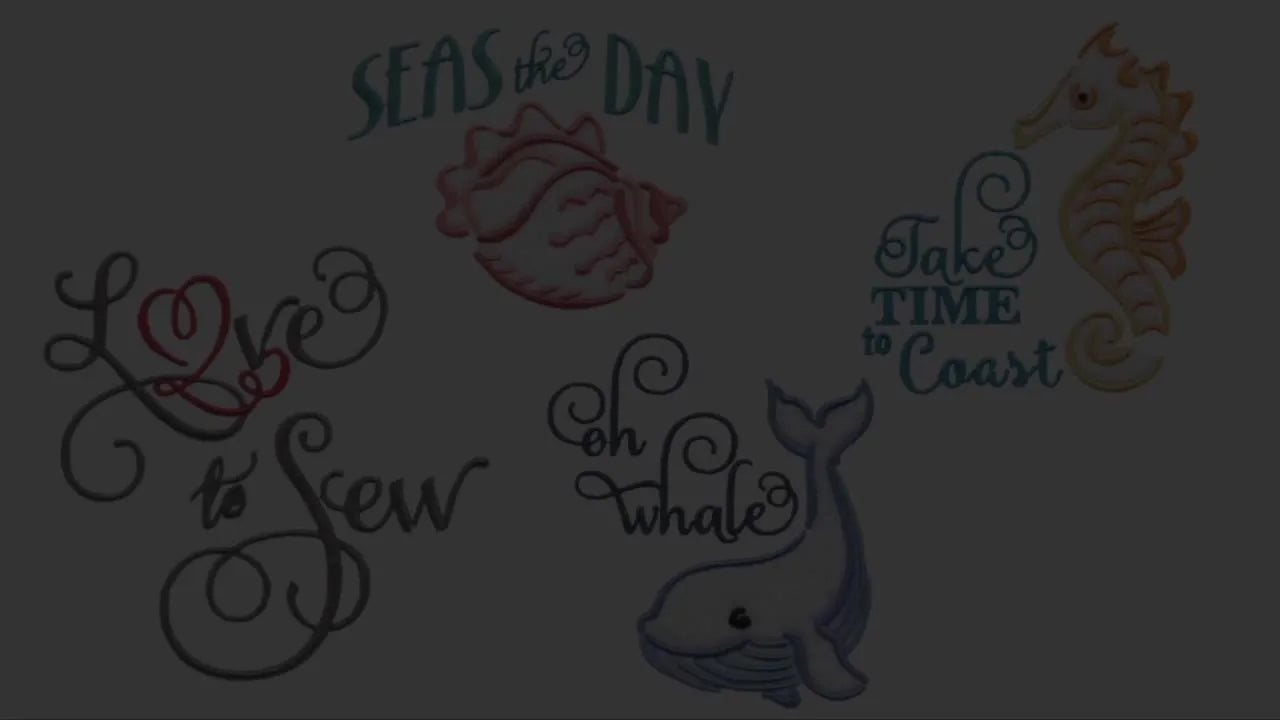
Alternate Character Sets in Embrilliance: Make BX Fonts Look Custom (Without Turning Your Words Into a Swirly Mess)
You know the feeling: You load a beautiful decorative font, type in a name, and suddenly it looks like a spiderweb of tangled thread. The swashes are crashing into each other, and the text is illegible. If you are using Embrilliance (or EmbroideryWorks), the fix isn’t to abandon the font or “eyeball” a solution. The fix is a disciplined workflow: build a clean structural baseline first, then surgically swap only the letters that earn the flourish.
This guide reconstructs the professional digitizing logic behind using complex BX fonts (like the now-discontinued Samantha font) and converts it into a universal method you can apply to any multi-set decorative font system.
The Calm-Down Truth About BX Fonts in Embrilliance: You’re Designing, Not Typing
Here is the cognitive shift you must make: Embroidery lettering is not word processing.
If you have ever felt frustrated thinking, “Why can’t I just type the word and have it look perfect?”—stop blaming yourself. In the video, Lindee Goodall reveals the technical reality: complex fonts like Samantha were digitized into separate files (Normal plus four Alternates). In Embrilliance, a text object can only reference one "alphabet" file at a time.
When you try to type a full sentence using an "All-Swash" alternate file, it looks chaotic because those glyphs were designed as accent characters, not body text. It is the visual equivalent of shouting every word in a sentence.
A note on the specific font: Several viewers have noted that the specific "Samantha" font is no longer commercially available due to licensing changes. However, the technique detailed here is the industry standard for managing any high-end script font with alternate characters.
The “Hidden” Prep Before You Touch the Text Tool: Pick Your Hero Letters First
Before you open your software, you need to engage in "Pre-Flight" planning. Experienced digitizers do not just type; they design hierarchy.
Lindee’s approach is to study the target word (e.g., “Merry”) and decide strictly which letters will remain structural (standard) and which will become decorative.
The 90/10 Rule for Readability:
• The Hero (10%): Choose 1–2 letters to carry the drama. This is usually the first capital (Drop-Cap effect) or the final letter (Finishing Swash).
• The Structure (90%): Keep the middle letters simple. If your customer cannot read the word from 6 feet away, the design has failed—no matter how pretty the stitching is.
• Size Hierarchy: Plan for a physical size difference. A common ratio is 60%, where the lowercase letters are about 60% the height of the ornate capital (e.g., 15mm lowercase vs. 25mm capital).
Build the Baseline in “Normal” Mode So Your Word Stays Readable
The first practical step is establishing a "Source of Truth."
1. Select the Text Tool.
2. Type your full phrase (e.g., “Merry Christmas”).
3. Set the font to the Standard/Normal version.
This creates your structural anchor. By starting here, you guarantee that letter spacing (kerning) and alignment are readable before you start adding complexity. Think of this as the framing of a house; the decorative swashes are just the paint.
The Safe Way to Use Alternates: Isolate, Swap, and Delete
This is the core technical skill. Most beginners try to change the font of the whole word, which ruins the spacing. Lindee’s method is surgical: